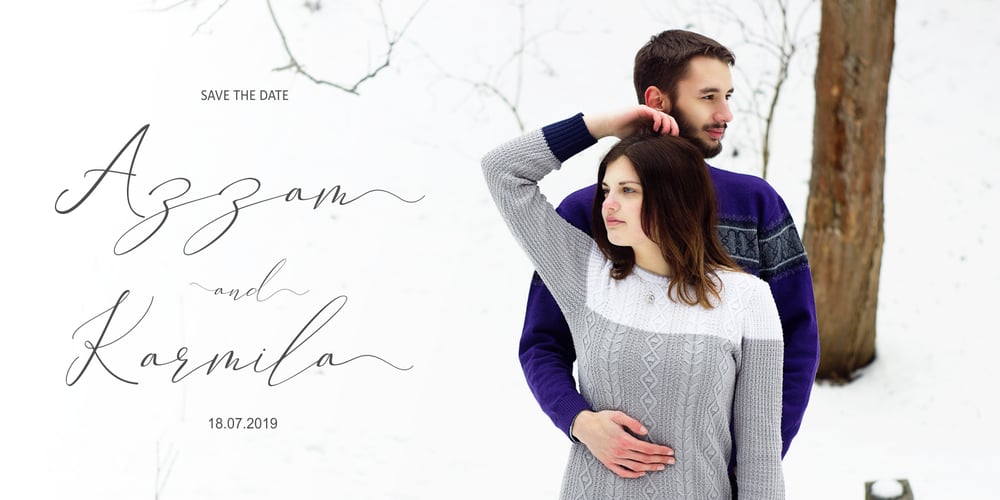
Binattiah Script
Binattiah Script font
Binattiah Script Font Family was designed by Nasrullah and published by Sulthan Studio. Binattiah Script contains 1 styles and family package options. Binattiah Script has a romantic and modern calligraphy, ready to give your design a fresh and fabulous Style. Binattiah Script comes as a single font file packed full of great features. Perfect for weddings, branding and romantic invitations and also suitable for various purposes such as digital lettering, headings, logos, wedding invitations, t-shirts, letterheads, signage’s and much more!.